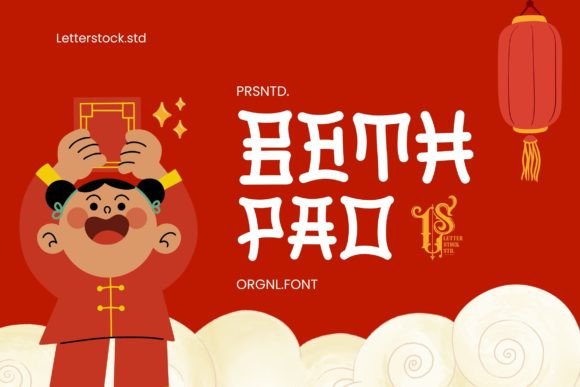
Beth Pao Font: A Timeless Elegance of Chinese Typography
Introducing Beth Pao, an original hand-drawn display font that embodies the essence of Chinese typography. This meticulously crafted font is designed to add a touch of sophistication to your projects, making it perfect for posters, invitations, and branding materials. With its captivating charm and unique authenticity, Beth Pao is sure to leave a lasting impression.
The Artistry of Beth Pao
Beth Pao is a masterpiece of original hand-drawn artistry, infused with the rich essence of Chinese typography. Each character in this font is carefully crafted to reflect the beauty of Chinese script, paying homage to the artistry of Chinese calligraphy. The intricate details and graceful strokes of Beth Pao capture the essence of traditional Chinese script, making it a standout in the world of typography.
What Makes Beth Pao Unique?
Beth Pao’s uniqueness lies in its hand-drawn authenticity. Unlike other fonts that may rely on automated processes, Beth Pao is crafted with love and care, ensuring that each character is distinct and authentic. This attention to detail makes Beth Pao a valuable asset for designers and artists looking to add a touch of elegance to their work.
Perfect for Various Projects
Beth Pao is a versatile font that can be used in a variety of projects, including:
• Posters: Add a touch of sophistication to your posters with Beth Pao’s elegant strokes and intricate details.
• Invitations: Make your invitations stand out with Beth Pao’s captivating charm and unique authenticity.
• Branding Materials: Elevate your brand with Beth Pao’s timeless elegance and rich essence of Chinese typography.
The Benefits of Using Beth Pao
Using Beth Pao in your projects comes with numerous benefits, including:
• Unique Authenticity: Beth Pao’s hand-drawn authenticity ensures that your projects stand out from the crowd.
• Elegance and Sophistication: Add a touch of elegance and sophistication to your projects with Beth Pao’s intricate details and graceful strokes.
• Versatility: Use Beth Pao in a variety of projects, from posters to branding materials.
Tips for Using Beth Pao Effectively
To get the most out of Beth Pao, here are some tips for using it effectively:
• Pair with Other Fonts: Pair Beth Pao with other fonts to create a unique and visually appealing combination.
• Experiment with Colors: Experiment with different colors to find the perfect match for your project.
• Pay Attention to Spacing: Pay attention to spacing to ensure that your text is easy to read and visually appealing.
In conclusion, Beth Pao is a timeless elegance of Chinese typography that is sure to leave a lasting impression. With its unique authenticity, intricate details, and graceful strokes, Beth Pao is perfect for adding a touch of sophistication to your projects. Whether you’re a designer, artist, or simply looking for a unique font, Beth Pao is a valuable asset that is sure to exceed your expectations.
What is Beth Pao Font?
Beth Pao is an original hand-drawn display font with a Chinese typography style.
What makes Beth Pao unique?
Beth Pao’s uniqueness lies in its hand-drawn authenticity, ensuring that each character is distinct and authentic.
What can I use Beth Pao for?
Beth Pao is perfect for posters, invitations, branding materials, and any project that requires a touch of elegance and sophistication.